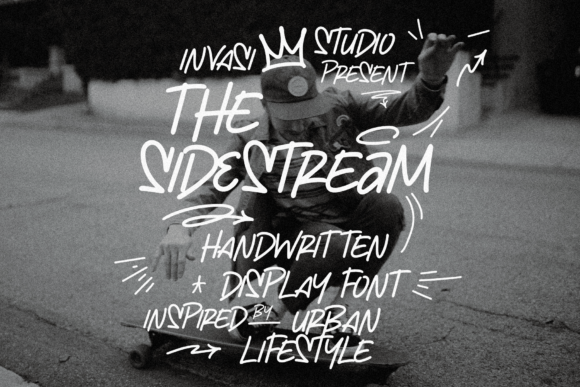
**Introducing the Sidestream Font: The Ultimate Canvas for Your Creative Vision**
Prepare to be captivated by The Sidestream Font, a graffiti-inspired display font that will unleash your inner street artist!
Step into the vibrant world of urban expression with this bold and edgy font, crafted by the visionary designers at invasistudio. Its razor-sharp lines and fluid strokes evoke the raw energy of street art, igniting a creative spark within you.
Indulge in limitless possibilities as you design eye-catching t-shirts that radiate street cred. Emblazon your sportswear with unique logos that embody the spirit of competition. Elevate your advertising campaigns with bold headlines that demand attention.
The Sidestream Font is not just a font; it's a canvas for your imagination. Its versatile nature transcends mediums, inviting you to adorn clothing, packaging, and more with its captivating presence.
Whether you're a seasoned designer or a budding enthusiast, The Sidestream Font will empower you to unleash your creativity and forge a unique visual identity. Its dynamic energy will inspire you to push boundaries, challenge conventions, and leave an unforgettable mark on the world.